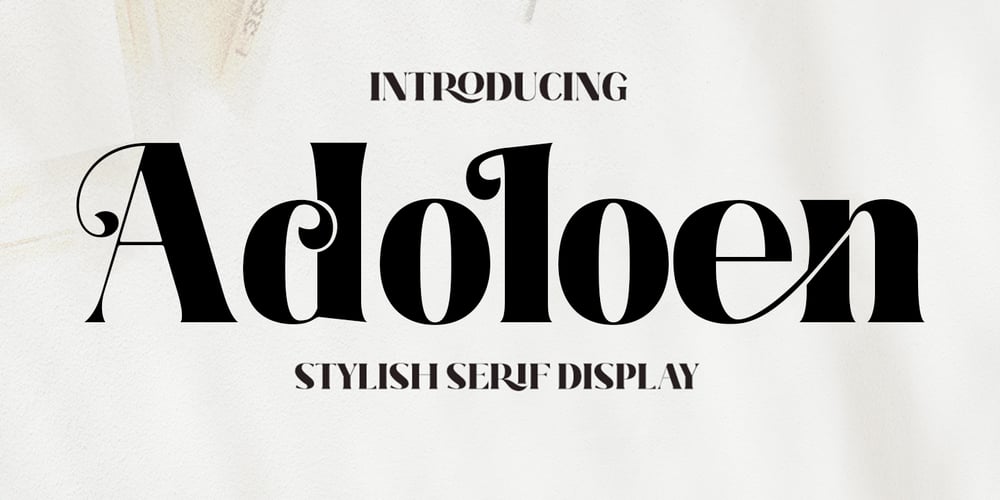
Adoloen Font Family was designed by Yusliana M Isa and published by Gian Studio. Adoloen contains 1 styles and family package options. Adolone We are proud to present our new font. The new natural Adolone look with a classy and modern style makes this font look elegant, natural, stylish.Adolone will be perfect for invitations, logos & branding, photography, advertising, watermarks, social media posts, product packaging, product designs, labels, wedding designs, stationery, special events or anything else needed to create a theme.Adolone is built with OpenType features and includes initial and final language styles, alternative characters for most lowercase letters, numbers, punctuation marks, alternatives, ligatures, and also supports other languages.